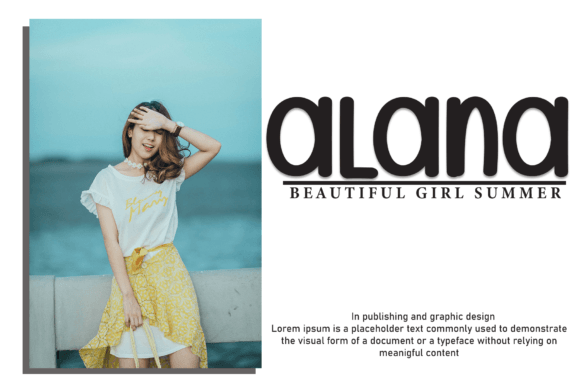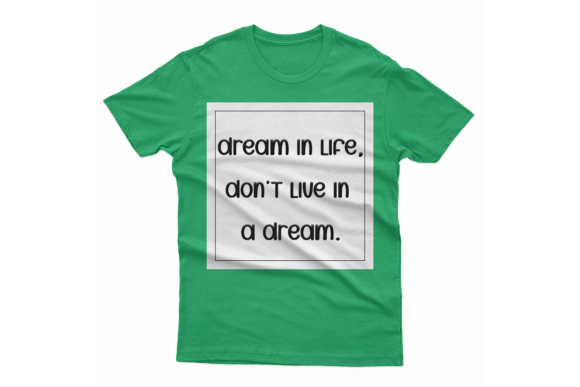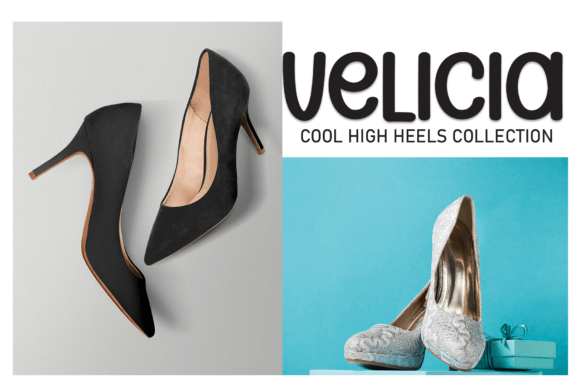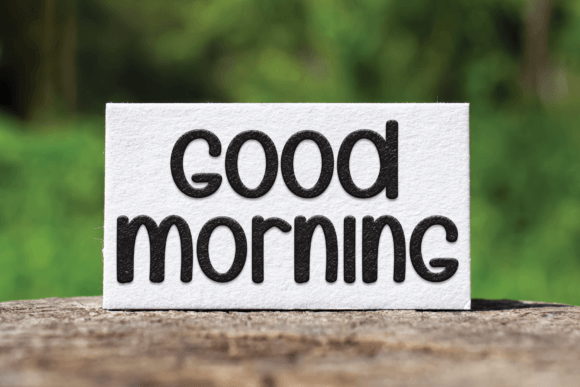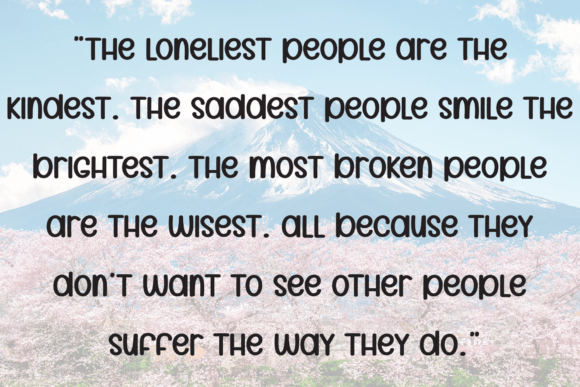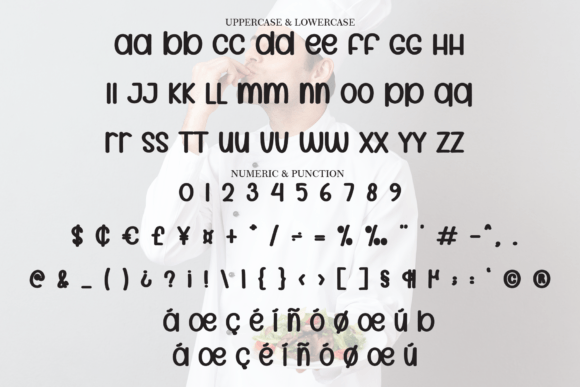
Adding a Touch of Sweetness to Your Designs
Have you ever found yourself sitting at your desk, surrounded by scraps of paper, paint swatches, and half-finished designs, feeling stuck and uninspired? That was me, until I stumbled upon the perfect solution – a font that brings a smile to your face and a dash of whimsy to your work. Enter the Delicious Font, a sweet and friendly handwritten font that’s as fresh as a spring morning.
Designed to add a fun touch to your designs, this font is perfect for writing wedding invitations, cards, or any other project that needs a little extra love. And for designers, that’s where the magic happens – the Delicious Font offers a unique opportunity to infuse your work with personality and charm, setting you apart from the crowd and making your designs truly unforgettable.
Delicious Font Key Features
- Font Family: Delicious Font is a modern sans-serif font family that comes in 6 styles: Thin, Light, Regular, Medium, Bold, and Black.
- Character Set: Includes a wide range of characters, including Latin, Cyrillic, and Greek alphabets, as well as punctuation and symbols.
- Size: Delicious Font is available in 6 different font sizes: Thin (100-400), Light (400-700), Regular (700-900), Medium (900-1000), Bold (1000-1200), and Black (1200-1500).
- Resolution: Designed for high-resolution displays, making it perfect for use in digital applications such as websites, mobile apps, and social media.
- Unique Characteristics: Delicious Font features a clean and elegant design, with a focus on legibility and readability, making it ideal for use in body text, headings, and titles.
Delicious Font Review
Overall, I think Delicious Font is a great addition to any designer’s toolkit. Here are a few things that work well:
- ✨ The font is highly customizable, allowing for a wide range of styles and sizes.
- ✨ The font is available in a variety of weights, from light to bold, making it perfect for creating visual hierarchies.
- ✨ The font is highly legible, even at small font sizes, making it ideal for body text.
However, I do have a few reservations:
- ⚠️ The font may not be suitable for formal or professional applications, as it has a somewhat casual and playful feel.
Overall, I think Delicious Font is a great choice for designers looking for a versatile and customizable font. While it may have some limitations, its strengths far outweigh its weaknesses.
For the best results, pair Delicious Font with a clear and simple design. Avoid using too much bold or italic text, as this can make the font difficult to read. Experiment with different font sizes and colors to create a visually appealing design.
Delicious Font is ideal for use in food and beverage branding, cooking blogs, and restaurant menus. It’s also a great choice for creating invitations, flyers, and other promotional materials that require a warm and inviting tone.